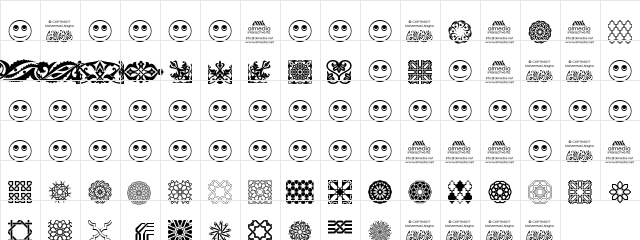
AGA Arabesque Free Sample Regular
Design Context for AGA Arabesque Free Sample Typeface
AGA Arabesque Free Sample is a composed and adaptable typeface that performs quietly and consistently across a wide range of design contexts.